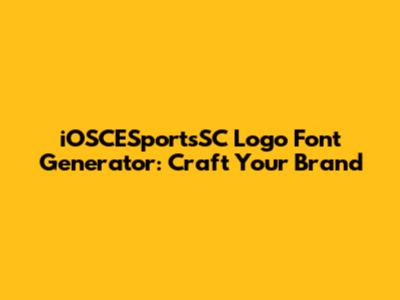
Hey guys! Ever found yourself staring at a blank screen, totally stumped on how to create a killer logo for your iOSCESportsSC venture? You know, that one thing that’s supposed to scream “awesome” and make people instantly recognize your brand? Well, you’re not alone. Getting the perfect font for your logo can feel like a monumental task. It’s like trying to pick the right outfit for a first date – it needs to be just right, making a strong, memorable impression. And let’s be real, in the fast-paced world of esports, first impressions are everything. That’s where a good logo font generator comes into play. It’s your secret weapon for slicing through the confusion and landing on something that truly represents the spirit and energy of your iOSCESportsSC team or community. Think about it: the font you choose is more than just letters; it’s a visual handshake. It communicates professionalism, excitement, maybe even a bit of intimidation (in a good way, of course!). A sharp, dynamic font can make your logo pop on streaming overlays, social media banners, and team jerseys. Conversely, a weak or inappropriate font can make your brand look amateurish and get lost in the digital noise. So, buckle up, because we’re diving deep into the world of logo font generators, specifically how they can supercharge your iOSCESportsSC branding efforts. We’ll break down what to look for, how to use them effectively, and why having the right font is absolutely crucial for standing out in the competitive esports scene. Get ready to transform your brand identity from drab to fab, all with the power of the right typography. This isn't just about making something look pretty; it's about building a visual identity that resonates, connects, and ultimately, helps your iOSCESportsSC presence dominate the competition.
Why Typography is Your Esports Brand's Best Friend
Alright, let’s get down to brass tacks. Why should you, an iOSCESportsSC enthusiast, care so much about fonts? It’s simple, really. Typography is the unsung hero of visual branding. Think about your favorite esports teams. What do their logos convey? Often, it’s a feeling – power, speed, precision, maybe even a bit of futuristic flair. That feeling is heavily influenced by the font they use. For an iOSCESportsSC brand, the font needs to capture the essence of competitive gaming. We’re talking about fast reflexes, strategic thinking, and the thrill of victory. A bold, blocky font might scream “powerhouse,” perfect for a team focused on aggressive play. A sleek, italicized font could convey speed and agility, ideal for a squad known for its rapid maneuvers. The font isn't just decorative; it's communicative. It’s a silent announcer that tells potential fans and rivals what your iOSCESportsSC brand is all about. In the digital arena, where attention spans are shorter than a pro gamer’s reaction time, your logo is often the first point of contact. If it’s visually striking and the font choice is on point, you’ve already won half the battle. It draws people in, makes them curious, and encourages them to learn more. A poorly chosen font, on the other hand, can be a major turn-off. Imagine seeing a super-serious esports logo rendered in a whimsical, childlike font – it just doesn’t compute, does it? It creates cognitive dissonance and undermines the credibility of your iOSCESportsSC brand. That’s why investing time in finding the right font is non-negotiable. It’s about building trust, establishing authority, and ensuring your brand identity is consistent across all platforms, from your Twitch channel to your Discord server. We want your iOSCESportsSC brand to be instantly recognizable and respected, and the font is a foundational element in achieving that goal. So, let's treat typography with the respect it deserves – it's a powerful tool in your branding arsenal, guys.
Navigating the World of Font Generators for iOSCESportsSC
So, you're convinced that fonts matter, and you're ready to find that perfect typographic match for your iOSCESportsSC brand. But where do you even start? This is where logo font generators become your best buds. These online tools are designed to take the guesswork out of font selection, offering a massive library of styles and allowing you to preview your brand name in countless ways. Think of them as your personal typography playground. They’re incredibly useful because they offer instant visual feedback. You type in your iOSCESportsSC team name, and boom! You can cycle through hundreds, even thousands, of different fonts in seconds. This speed and efficiency are invaluable when you’re trying to brainstorm and explore different aesthetic directions. Many generators also come with customization options. You might be able to tweak spacing (kerning and tracking), adjust letter sizes, or even add effects like outlines or shadows. This level of control allows you to fine-tune the look and feel until it’s absolutely perfect for your iOSCESportsSC brand. When choosing a font generator, look for one that has a diverse collection. You’ll want options ranging from classic and sophisticated to modern and edgy, ensuring you can find a font that truly aligns with your specific iOSCESportsSC niche. Consider generators that offer a good preview function, allowing you to see your text in various contexts, like on a dark background or a light one. Some advanced tools even let you upload existing logos or images to see how new fonts might complement them. The key is to experiment! Don't settle for the first font that looks halfway decent. Play around with different styles. Does your iOSCESportsSC team lean towards a futuristic vibe? Look for sharp, angular fonts. Are you more about classic, hard-hitting action? Explore bold, serif or sans-serif options. The goal is to find a font that not only looks good but also feels right for your brand identity. Remember, guys, these tools are here to make your life easier. They democratize design, putting powerful typographic tools right at your fingertips, so you can focus on what you do best – dominating in iOSCESportsSC.
Choosing the Right Font: What to Look For
Alright, now that you’re armed with the knowledge of why fonts are crucial and how generators can help, let’s talk about the nitty-gritty: what exactly should you be looking for in a font for your iOSCESportsSC logo? This is where we move from just looking good to looking professional and effective. First off, readability is paramount. No matter how cool a font looks, if people can’t easily read your iOSCESportsSC brand name, it’s a fail. Especially in esports, where quick glances are common, your text needs to be crystal clear. Think about legibility across different sizes and resolutions – from a tiny favicon to a huge banner. Avoid overly stylized or complex fonts that might look unique but sacrifice clarity. Next up, consider the personality and tone the font conveys. Does it match your iOSCESportsSC team’s identity? Are you a high-octane, aggressive team? A bold, strong sans-serif font like Impact or Bebas Neue might be perfect. Are you a more strategic, sophisticated squad? Perhaps a clean, modern sans-serif or even a sharp serif font could work. Think about the emotions you want to evoke: excitement, power, intelligence, speed? The font is your primary tool for this. Uniqueness and memorability are also key. You want a font that stands out from the crowd, not something that blends in with every other generic logo. While avoiding illegibility, aim for a font that has some character. A slightly unconventional letterform or a distinctive weight can make your iOSCESportsSC logo instantly recognizable. However, tread carefully – too unique can quickly become unreadable or look unprofessional. Balance is crucial, guys. Another factor is versatility. Will this font work not just on your logo, but also on jerseys, website headers, social media posts, and merchandise? A font that looks great as a logo might be a nightmare to read in smaller applications. Test it out in different scenarios. Finally, licensing. This is super important, especially if you plan to monetize your iOSCESportsSC brand. Make sure the font you choose has a license that allows for commercial use. Many free fonts are available, but always double-check the terms. Using a font without the proper license can lead to legal headaches down the line. So, to recap: prioritize readability, match the font's personality to your brand, aim for uniqueness without sacrificing clarity, ensure versatility, and always check the license. Nail these points, and you’ll be well on your way to a stellar iOSCESportsSC logo font.
Leveraging Font Generators for Unique iOSCESportsSC Logos
Now, let’s talk about how to really make your iOSCESportsSC logo font stand out using these generators. It’s not just about picking a font; it’s about using the tools creatively to forge a truly unique brand identity. Many font generators offer more than just a list of fonts. They provide customization options that can transform a common typeface into something distinctively yours. Don’t just type your name and hit print! Play around with the letter spacing (kerning and tracking). Sometimes, slightly adjusting the space between letters can dramatically improve readability and aesthetic appeal. For instance, tightening the kerning in certain letter pairs can create a more cohesive and professional look for your iOSCESportsSC logo. Experiment with different weights and styles. If a generator offers options like bold, light, italic, or even condensed versions of a font, try them out. A bold weight might be perfect for impact, while an italic version could suggest speed. Some generators allow you to add effects like outlines, shadows, or glows. Use these sparingly and strategically. A subtle outline can help your iOSCESportsSC logo pop on busy backgrounds, but overdoing it can make it look cluttered and dated. Think about layering effects if the generator allows it. Another powerful technique is to combine fonts. While sticking to one font family is often recommended for simplicity, you can sometimes pair a bold display font for your main team name with a simpler, readable font for a tagline or secondary text. Test these combinations within the generator to see how they harmonize. Remember, the goal is to create something that is instantly recognizable and memorable for your iOSCESportsSC brand. Don’t be afraid to think outside the box. Can you combine letters in a unique way? Can you use a font that has a slightly retro or futuristic feel, depending on your brand's theme? For example, if your iOSCESportsSC team is called 'Quantum Fury,' you might look for a font with sharp, geometric lines and perhaps play with negative space to create a sense of energy. A generator can help you visualize this rapidly. Many generators also allow you to preview your logo in different contexts. Use this feature! See how your chosen font looks on a dark jersey, a bright screen, or a social media profile picture. This gives you a realistic sense of its versatility and impact. Ultimately, using a font generator effectively means treating it as a design partner. Explore its features, experiment boldly, and combine elements until you arrive at a visual representation that perfectly captures the spirit and ambition of your iOSCESportsSC endeavors. It’s about crafting a visual signature that sticks in people’s minds, guys.
Popular Font Generators You Can Try Today
Alright gamers, you’re hyped, you’re ready, and you want to dive into some actual font generators right now. Awesome! Luckily, the internet is brimming with fantastic tools that can help you whip up that killer iOSCESportsSC logo font. Here are a few popular and reliable options that are worth checking out. First up, Canva. While primarily known as a graphic design platform, Canva has an incredible font library integrated directly into its logo maker and design tools. You can type in your iOSCESportsSC name, browse thousands of fonts, and see them instantly. Canva's drag-and-drop interface makes it super easy to experiment with different layouts and elements around your text. It’s user-friendly, and many of its features are free, making it accessible for everyone. Next, consider FontSpace. This site isn't a generator in the strictest sense, but it hosts a massive collection of free fonts, many of which are perfect for gaming and esports branding. You can search by style (e.g., 'futuristic,' 'athletic,' 'cyberpunk') and download fonts to use in other design software. It’s a great resource for discovering unique typefaces that might not be found on more mainstream platforms. Just be sure to check the license for each font! Another fantastic option is Adobe Express (formerly Adobe Spark). Similar to Canva, it offers a robust design suite with a vast selection of fonts. You can easily create text-based logos, add effects, and resize your creations. Adobe Express is known for its high-quality templates and tools, and it integrates well if you're already in the Adobe ecosystem. For something a bit more specialized, check out dafont.com. Like FontSpace, it's a huge repository of free fonts. The organization can be a bit chaotic, but the sheer volume means you're bound to find something interesting. Filter by category – you'll find plenty of aggressive, sci-fi, and techno fonts suitable for iOSCESportsSC branding. Again, always check the licensing terms. If you're looking for something more professional and willing to invest a bit, MyFonts offers a premium selection of commercially licensed fonts. While not a generator per se, browsing their curated collections and new releases can spark inspiration, and purchasing a license gives you peace of mind. Finally, don’t underestimate the power of Google Fonts. It’s a curated list of open-source fonts that are free to use for any project, including commercial ones. While they lean towards more classic and web-friendly designs, you can find some surprisingly versatile and stylish options that can be adapted for an iOSCESportsSC logo, especially when combined with other design elements. So, guys, explore these resources! Mix and match, experiment, and find that perfect font that will make your iOSCESportsSC brand unforgettable.
Final Thoughts: Font Choice is Your Brand's Foundation
Alright folks, we've journeyed through the importance of typography, the magic of font generators, and how to pick that perfect font for your iOSCESportsSC brand. Let's bring it all home. Your logo font isn't just a design element; it's the bedrock of your brand's visual identity. In the hyper-competitive world of esports, where every detail matters, the font you choose sends a powerful message before you even say a word. It dictates whether your iOSCESportsSC team looks fierce and professional or weak and amateurish. It’s the first handshake, the silent handshake, that can draw in new fans or push them away. So, don't treat it as an afterthought. Use the tools we’ve discussed – the Canva’s, the FontSpaces, the Adobe Express’s – as your creative launchpad. Experiment relentlessly. Play with spacing, explore different weights, and don't shy away from unique styles, but always, always keep readability and your brand’s core message in mind. Does the font scream power? Speed? Strategy? Ensure it aligns perfectly with the essence of your iOSCESportsSC team. Remember the licensing too; legal trouble is definitely not a good look for any brand, esports or otherwise. Ultimately, the goal is to create a logo that is not only visually appealing but also functional, memorable, and authentically representative of who you are in the iOSCESportsSC scene. This foundation, built with careful font selection, will support all your future branding efforts, from jerseys and websites to social media and beyond. So go forth, explore, and craft a logo font that truly reflects the winning spirit of your iOSCESportsSC venture. Make it bold, make it clear, and make it yours. Your fans, your rivals, and your future success depend on it. Go get 'em, guys!